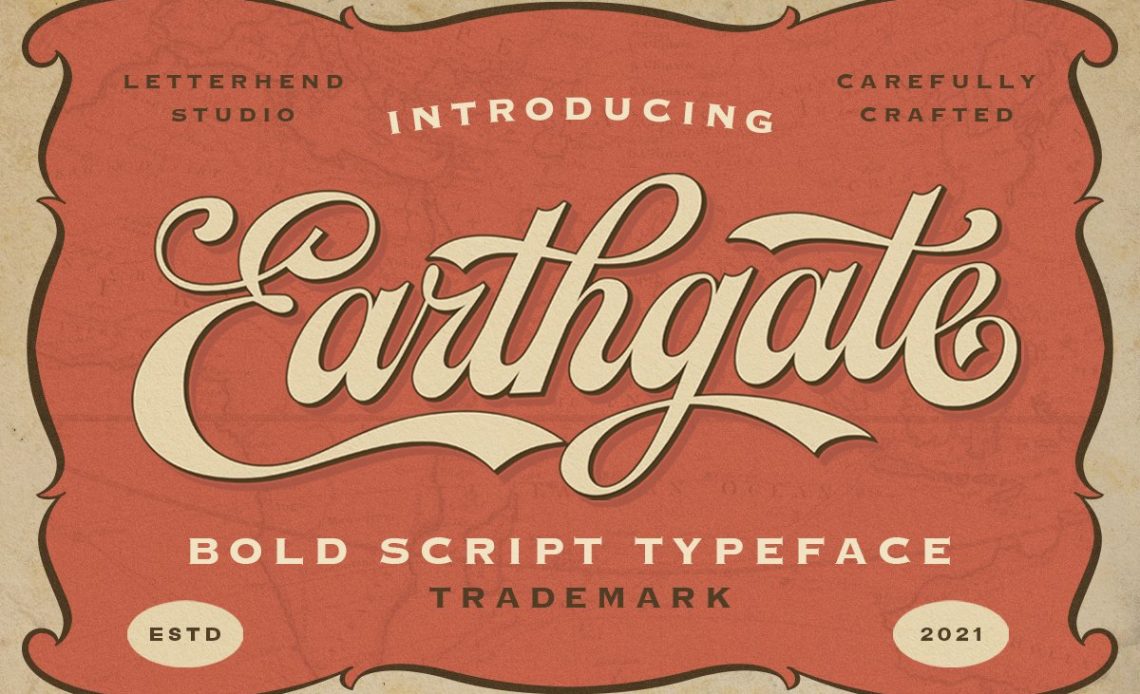
Introducing Earthgate, the Bold Script Typeface created by Hendry Juanda. With its nostalgic feel and vintage style, this font is a perfect match for projects with a retro or vintage theme. Earthgate's unique swashes add an extra touch of elegance, allowing you to effortlessly create beautiful vintage lettering.
This versatile typeface is not only great for logos, but also works well for various formal forms such as invitations, labels, magazines, books, greeting and wedding cards, packaging, fashion, makeup, stationery, novels, and any type of advertising purpose. Its uppercase and lowercase letters, numbers, and punctuation provide you with endless possibilities to customize your designs.
Earthgate is also multilingual, making it suitable for projects in different languages. It offers ligatures, alternates, and swashes, giving you the freedom to experiment and create truly unique designs. Additionally, this font is PUA encoded, ensuring seamless compatibility across different programs.
Start designing with Earthgate today and let your creativity soar! Transform your projects into stunning masterpieces that evoke emotions and captivate your audience. Whether you're working on a branding project, an invitation, or a magazine layout, Earthgate is the perfect companion to bring your vision to life.